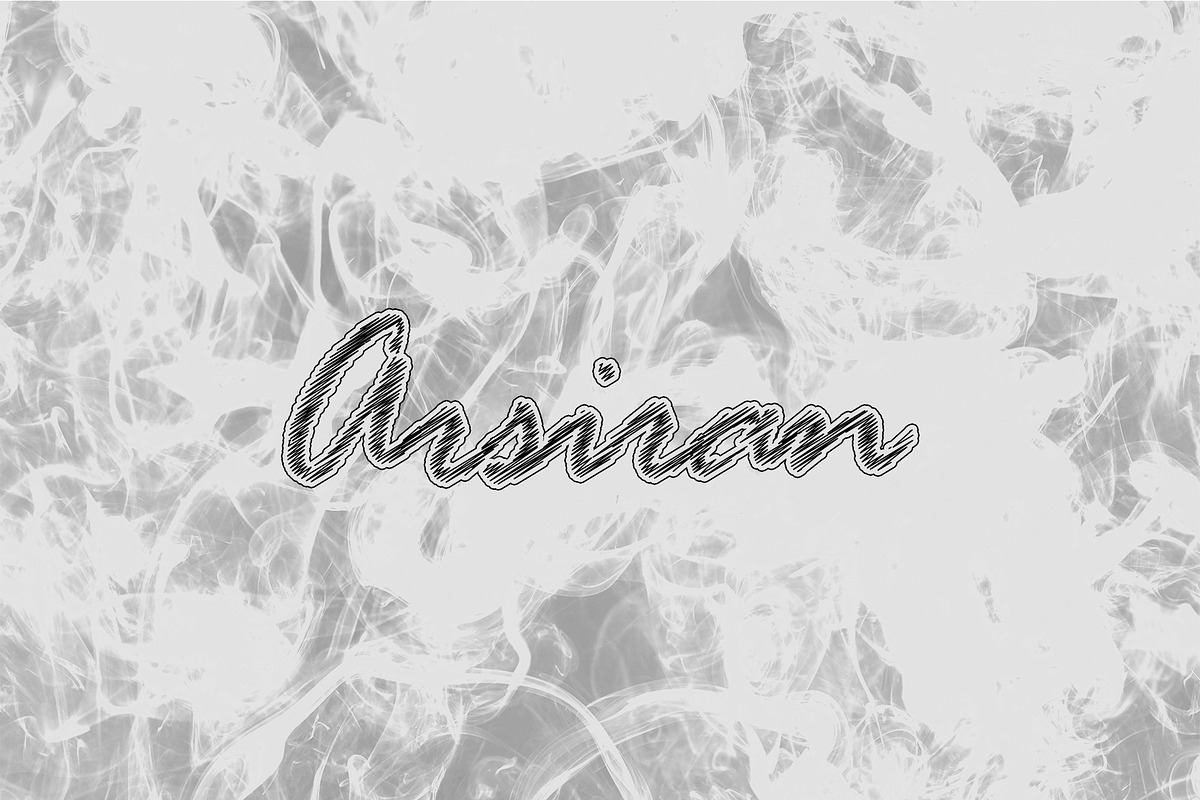
Arsiran Font Free Download is a modern and uniquely stylized typeface that blends sharp lines with artistic flair, making it ideal for bold branding, editorial layouts, posters, album covers, and creative visual identities. With its futuristic yet handcrafted appearance, Arsiran delivers a striking aesthetic that instantly grabs attention.
This typeface is perfect for designers who want to break from convention and explore something edgy, experimental, and visually memorable. Arsiran Font Free Download works beautifully in both large-scale headlines and impactful logo designs, giving your work a cutting-edge, design-forward feel.